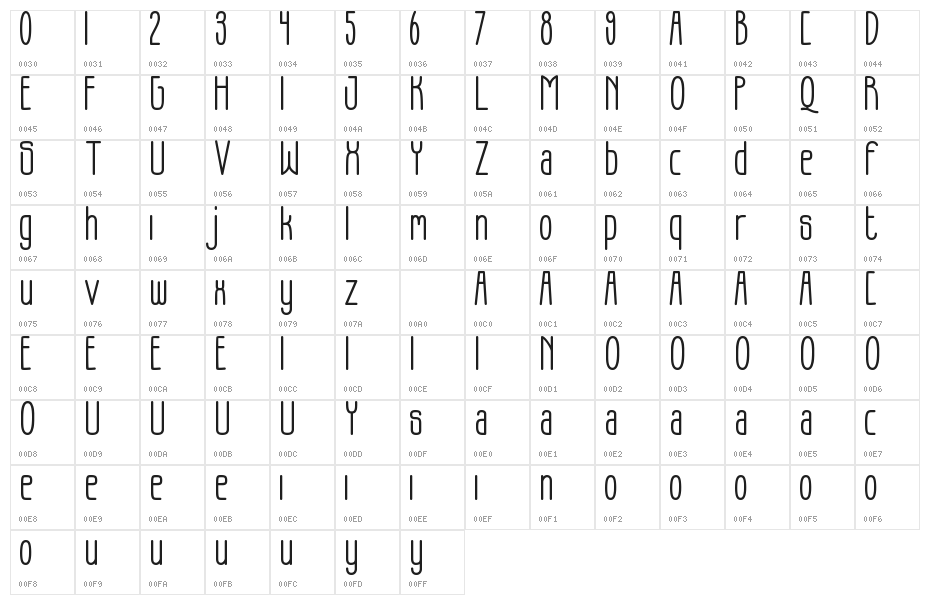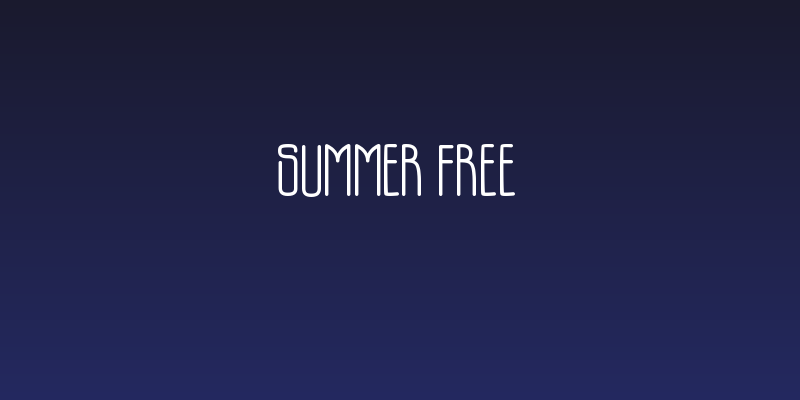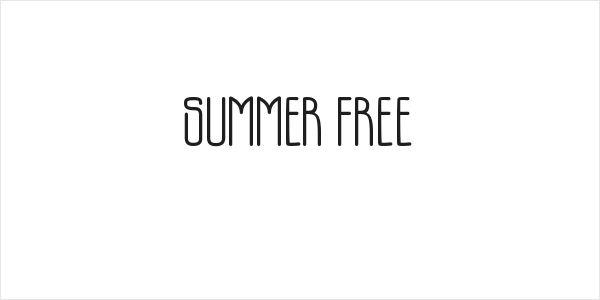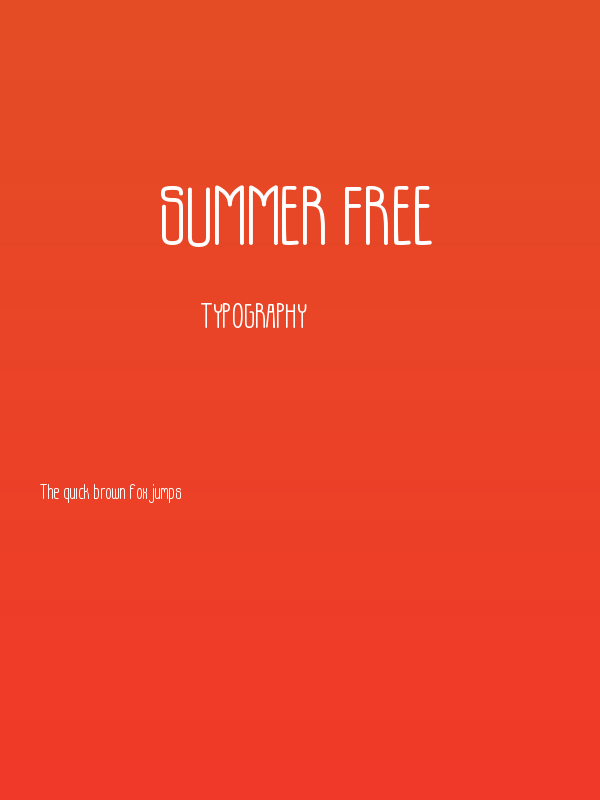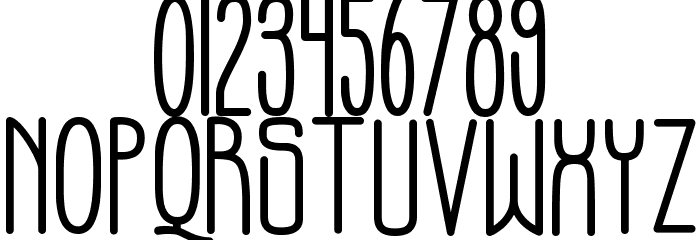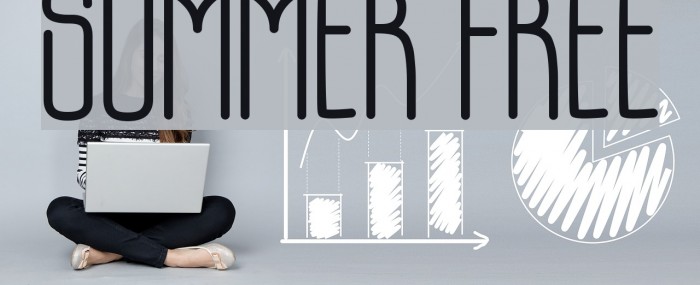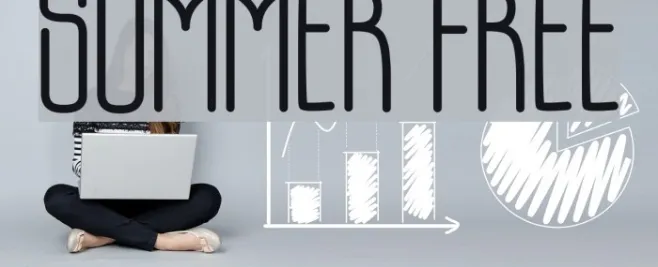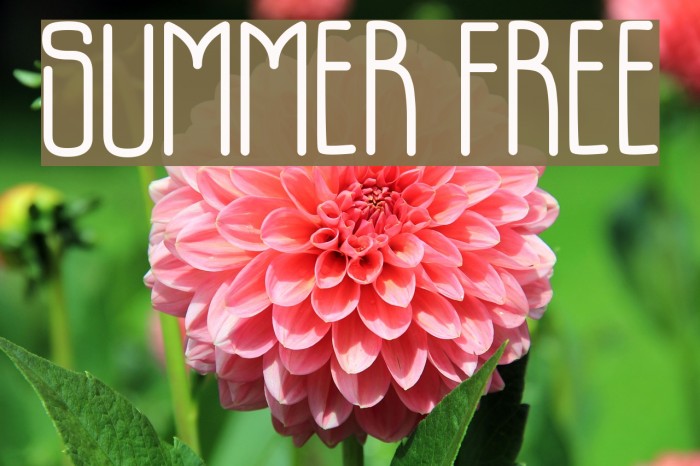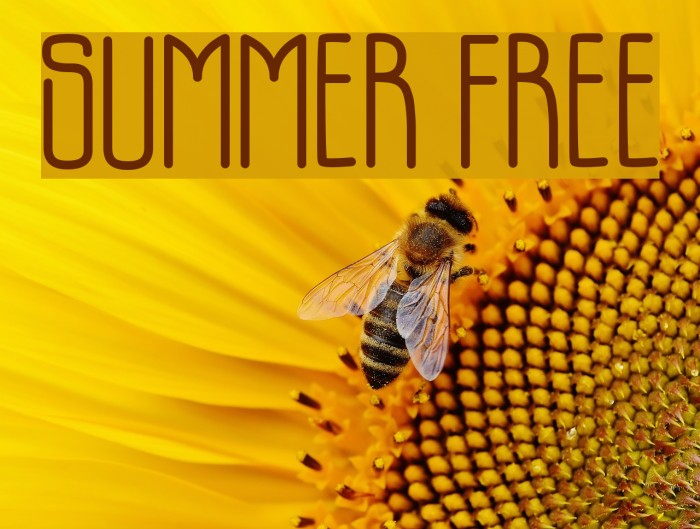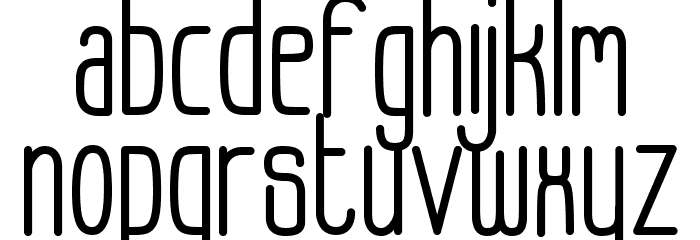
SUMMER FREE Font
SUMMER FREE Description
This font features a tall, narrow design with rounded edges, giving it a modern and approachable appearance. The characters are consistently elongated, creating a unique vertical emphasis. The uppercase and lowercase letters maintain a uniform stroke width, contributing to a clean and cohesive look. The numerals and special characters are designed to match the overall style, ensuring visual harmony across all elements. This font's distinctiveness lies in its playful yet structured form, making it suitable for a variety of creative applications.
| Proposed Projects | Ideal for branding, posters, and creative projects that require a modern and playful touch. |